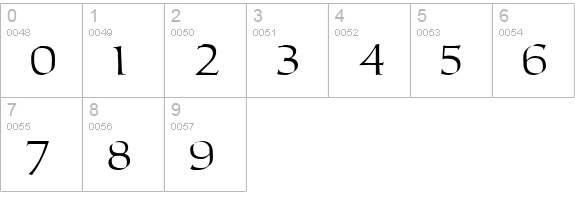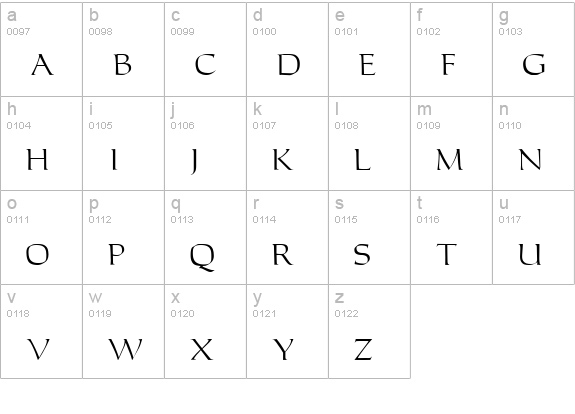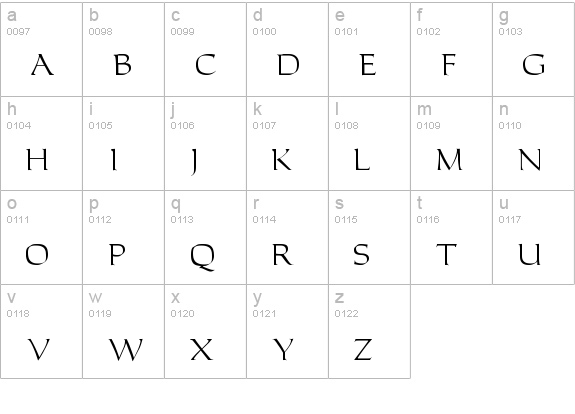
Carla Normal Font Details
Carla Normal is the standard, neutral variant in the Carla typeface family \xE2\x80\x94 well suited to general body text, paragraphs, and standard typographic work.
Carla Normal font is a versatile and elegant typeface that is perfect for various design projects. Its clean lines and modern look make it suitable for both digital and print applications. With a balanced combination of readability and style, Carla Normal font adds a touch of sophistication to any project. Best of all, Carla Normal font is available for free download at FontsMarket.com. This means you can easily access and use this high-quality font without any cost. Whether you are working on a personal project or a professional design, Carla Normal font offers a great solution with its timeless appeal and seamless compatibility. Download Carla Normal font today and elevate your designs with this exceptional typeface.